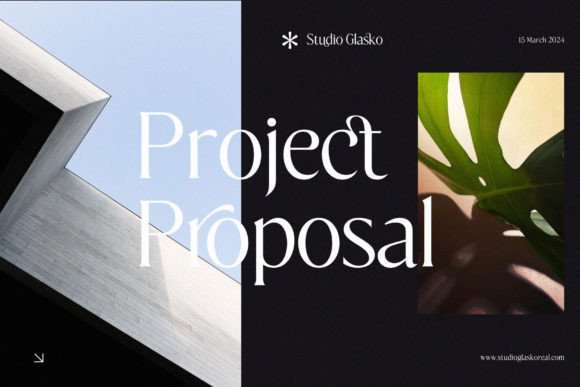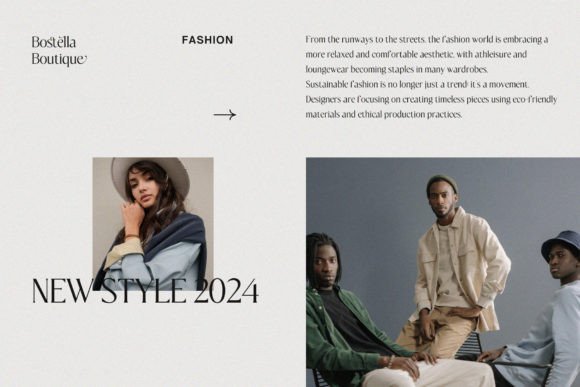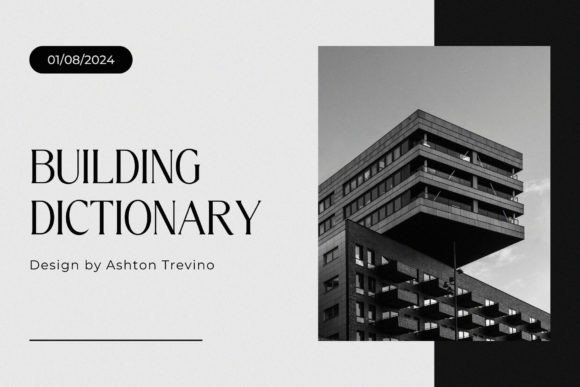
Night Glamour Font: Free Download Now
Introducing Night Glamour Classy & Elegance Serif.
Night Glamour is a stylish and modern display serif, best used as a display for headings, logos, branding, magazines, product packaging, and invitations Night Glamour is equipped with Ligature and many Alternates and comes with clean lines and smooth curves giving any project an extra touch of class.
Night Glamour Font offers exceptional quality and versatility, making it a valuable addition to your design toolkit. Whether you’re creating for personal projects or commercial use, Night Glamour Font delivers professional results.